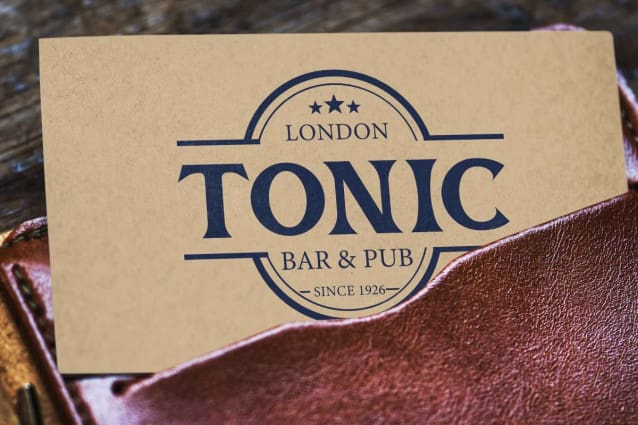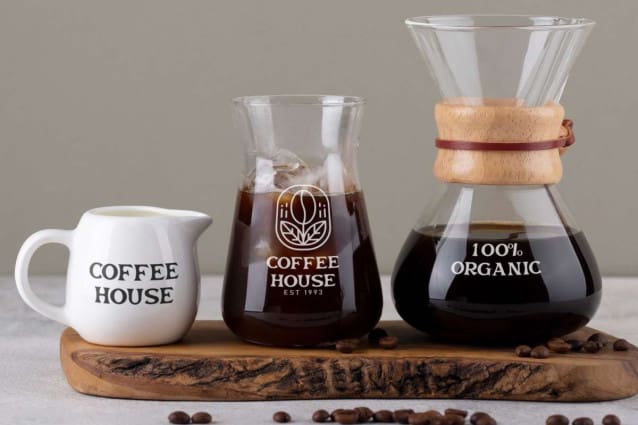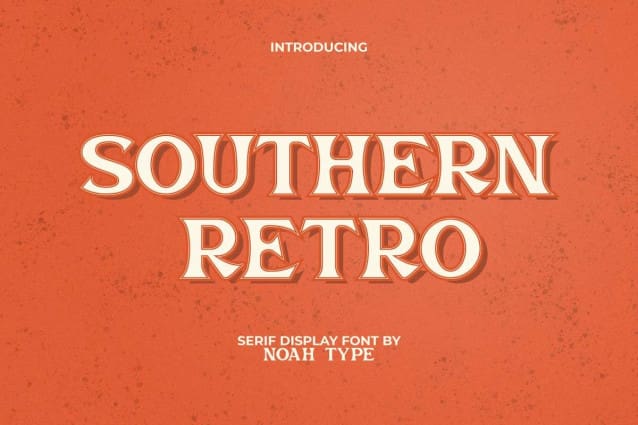
Southern Retro Font
Southern Retro Font is a classic sans serif display font with retro old style theme. This font will bring your design to a retro 70s vibe. With its style, it will make you want to include it in the design, such as signage, poster, greeting card, invitation, label, custom design, catalog, magazine, product packaging, screen printing, website, quote, and more!
Southern Retro Font include full set of Uppercase and Lowercase Basic Characters, Numerals and Punctuation. This font has the potential to be used in various industrial fields, such as, fashion, cafe, event organizer, accessories, advertisement, restaurant, art, handicrafts, printing, publishing, etc.